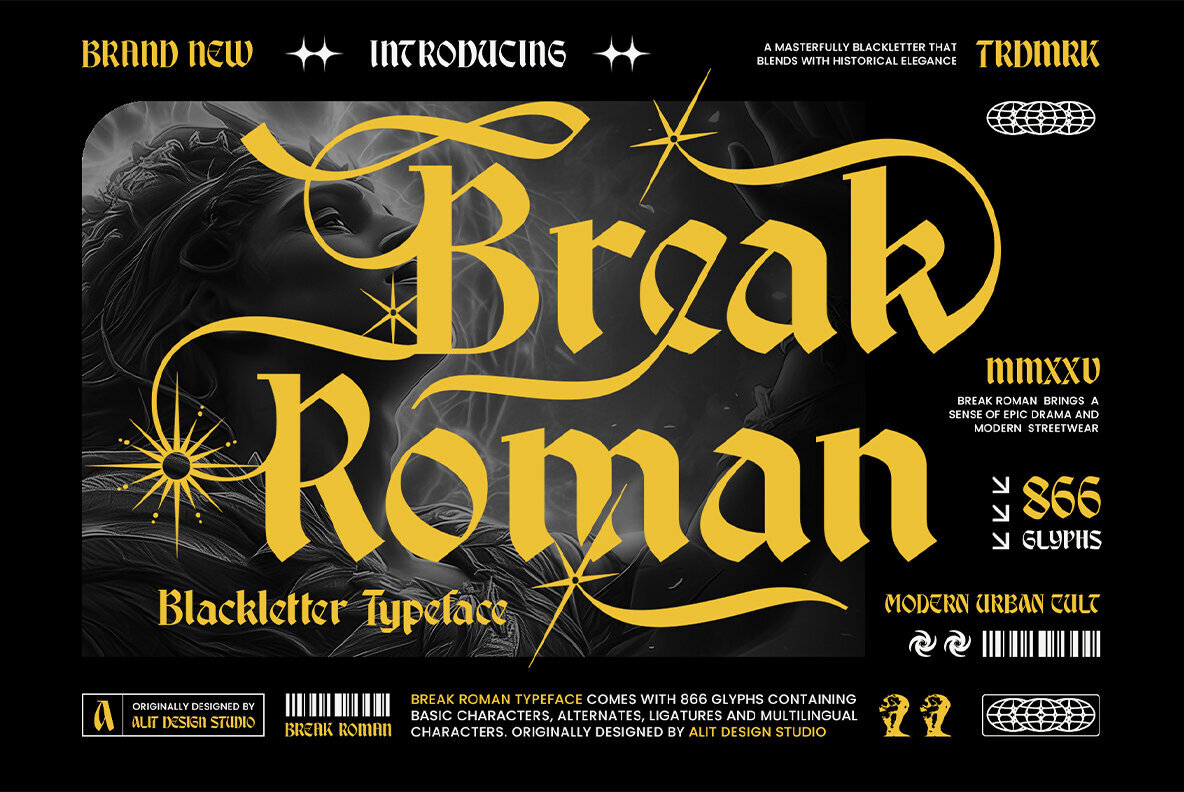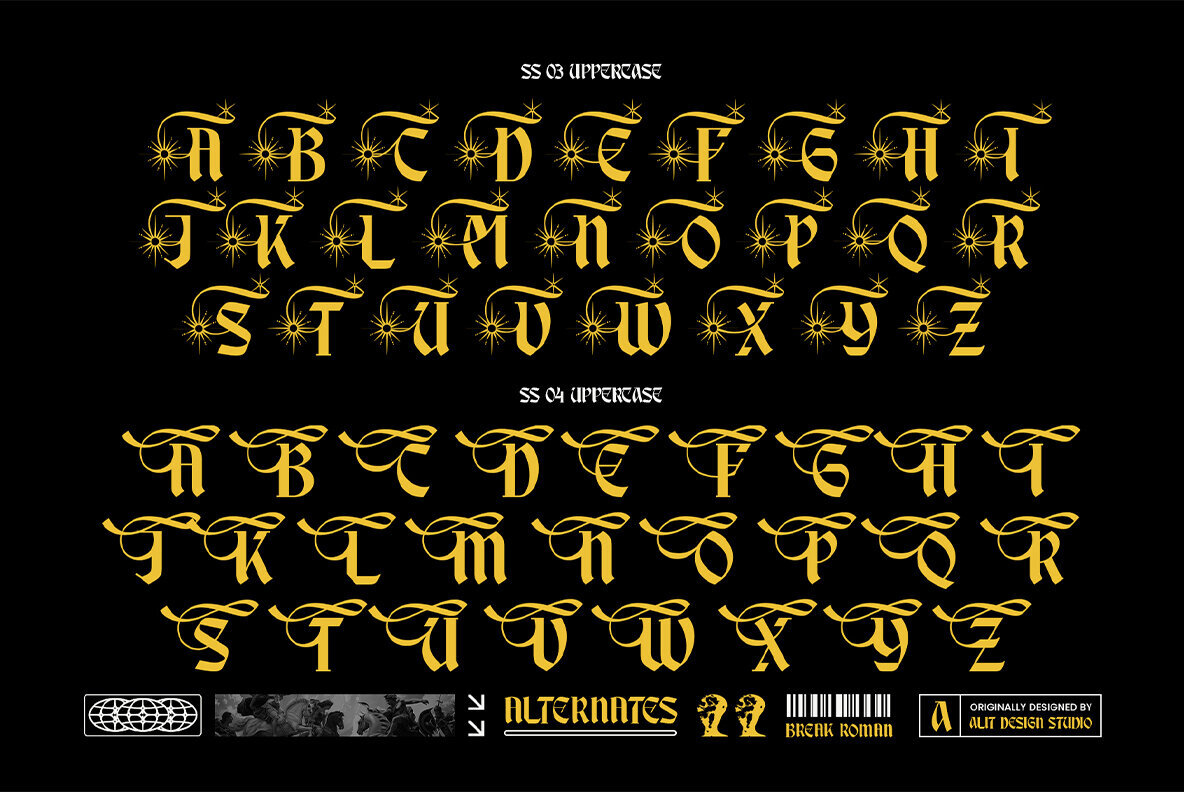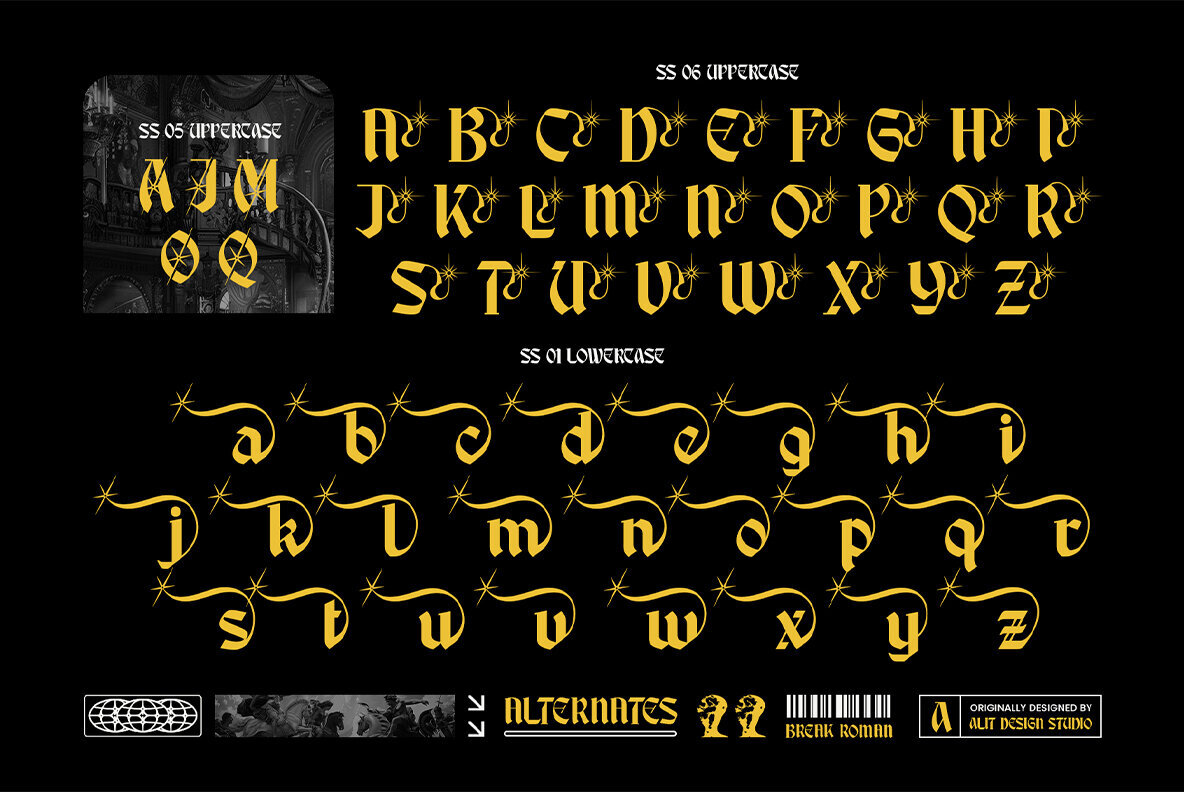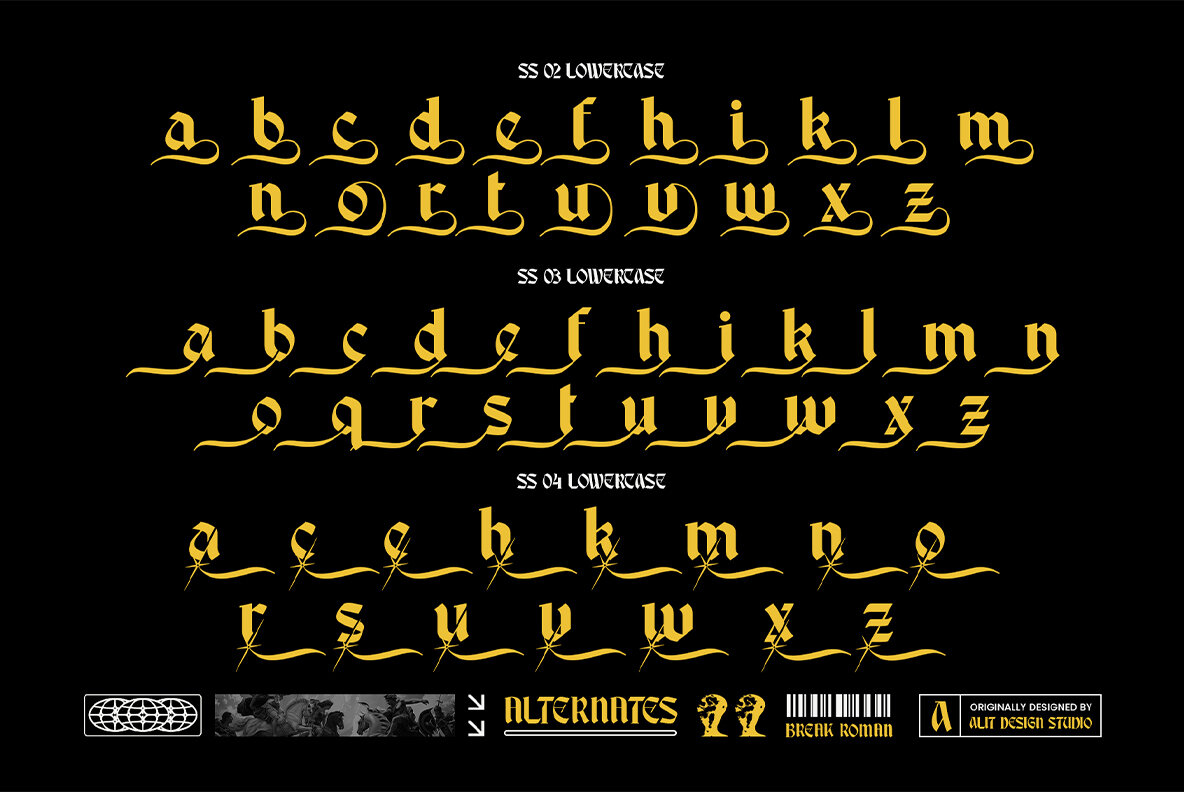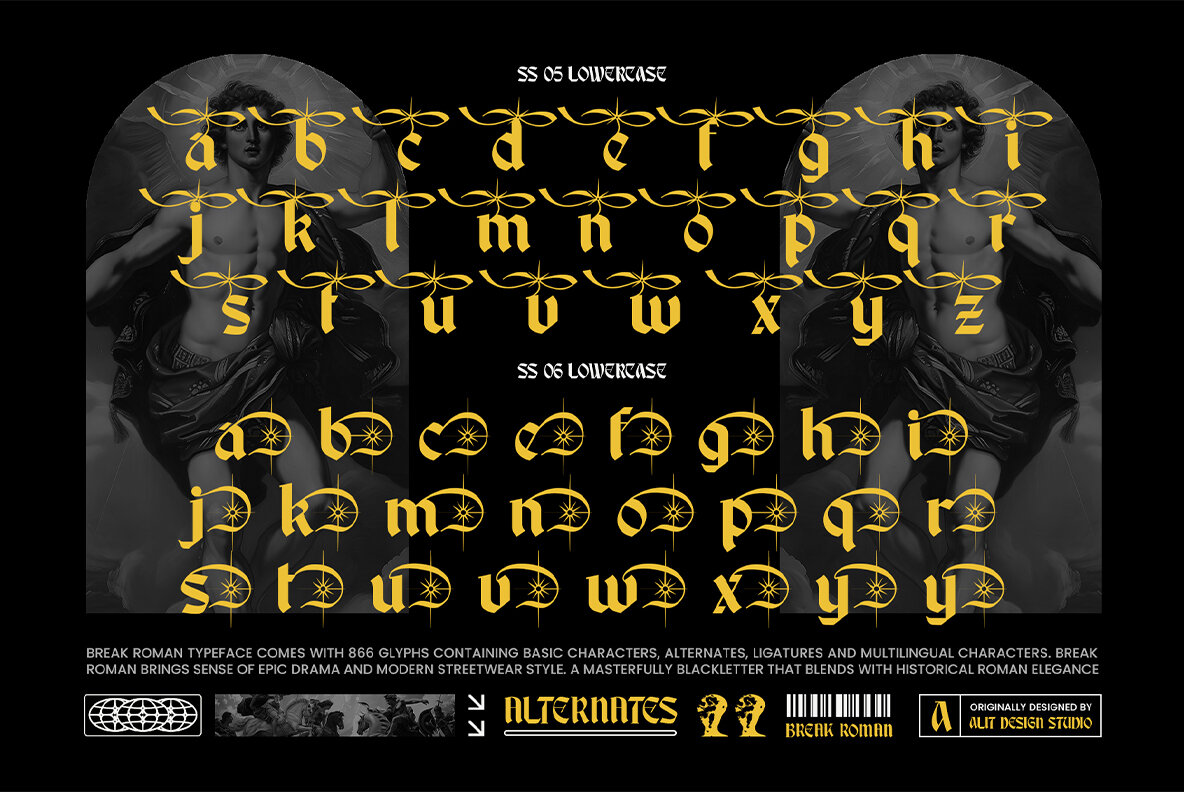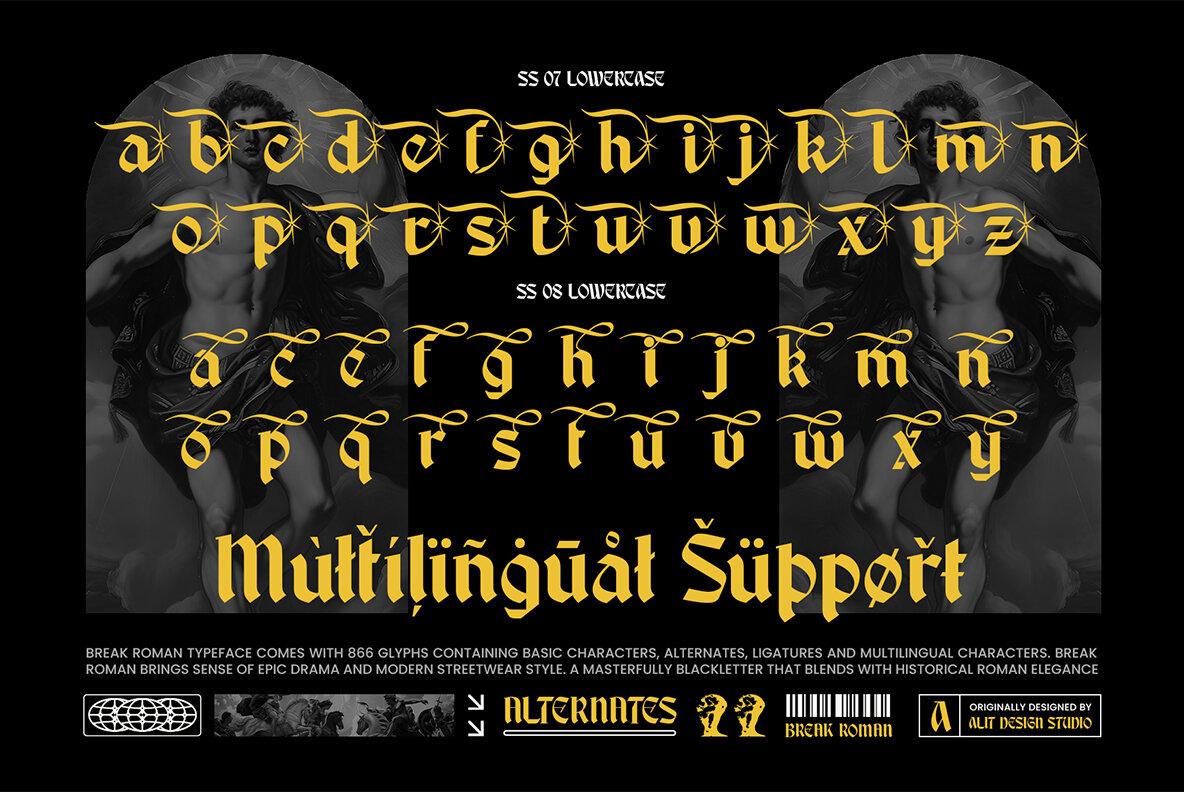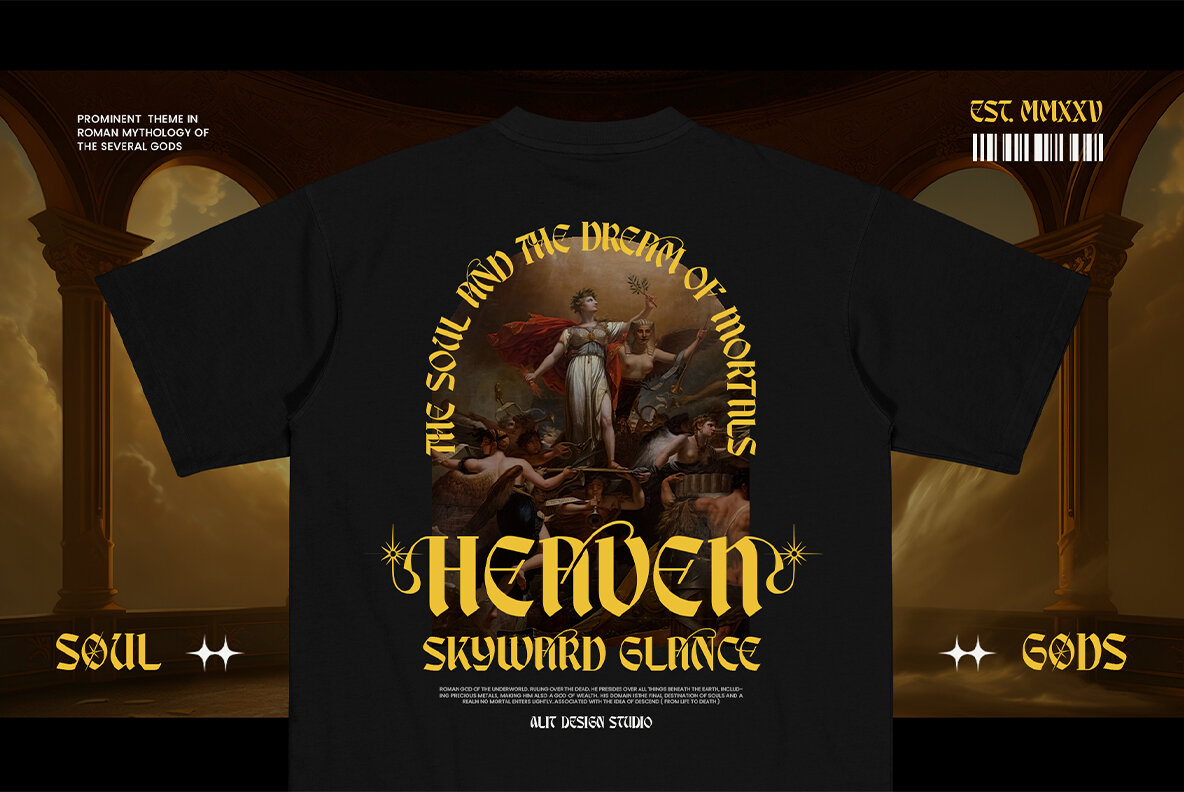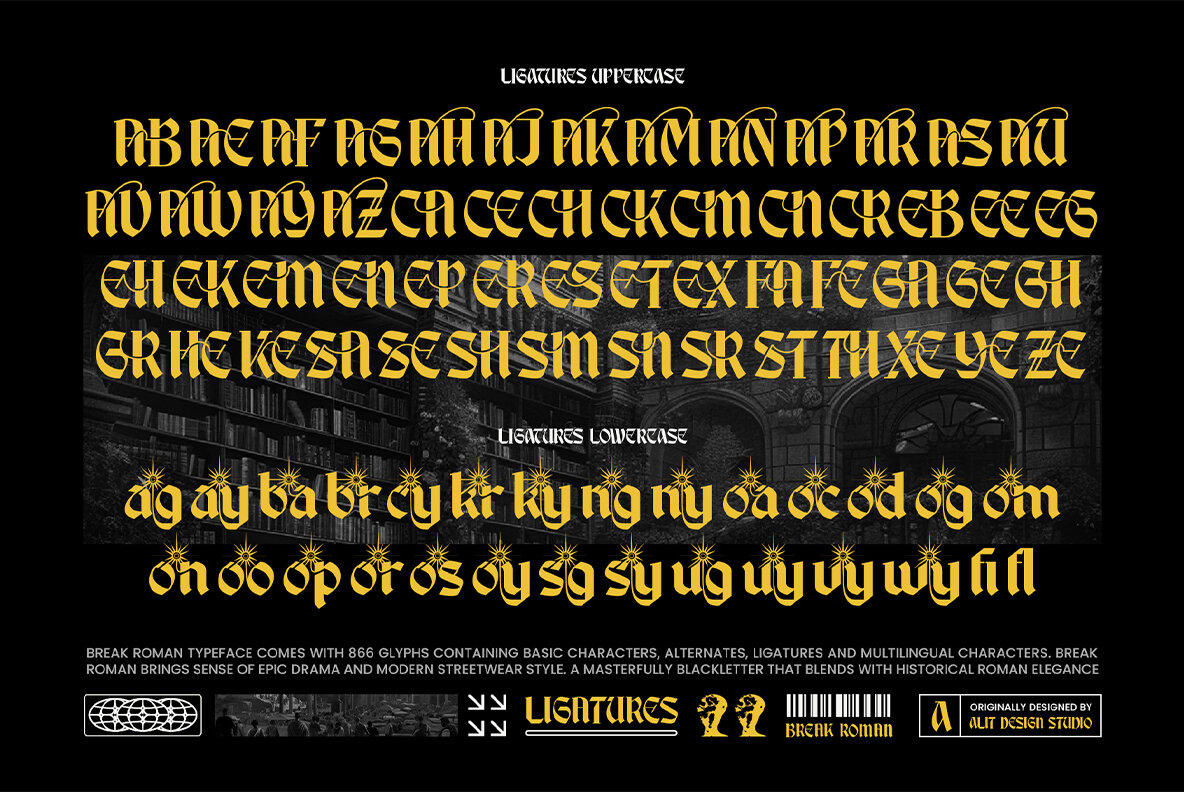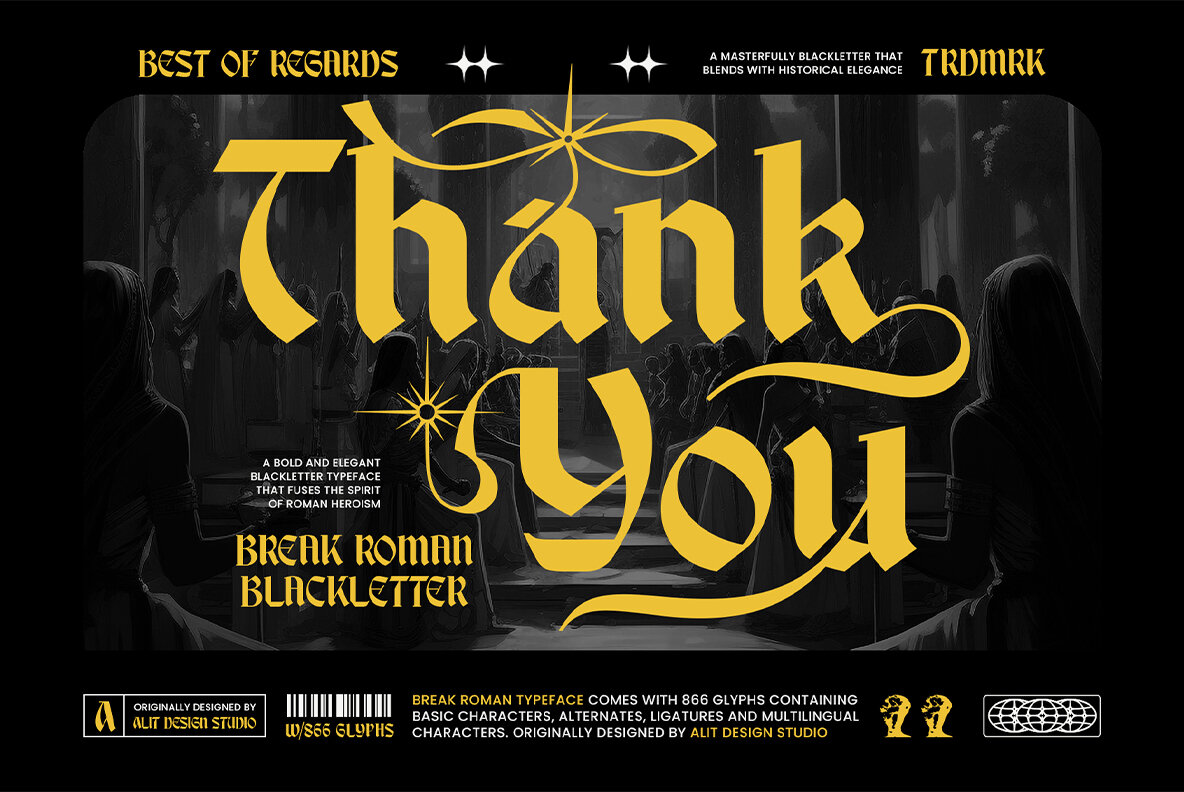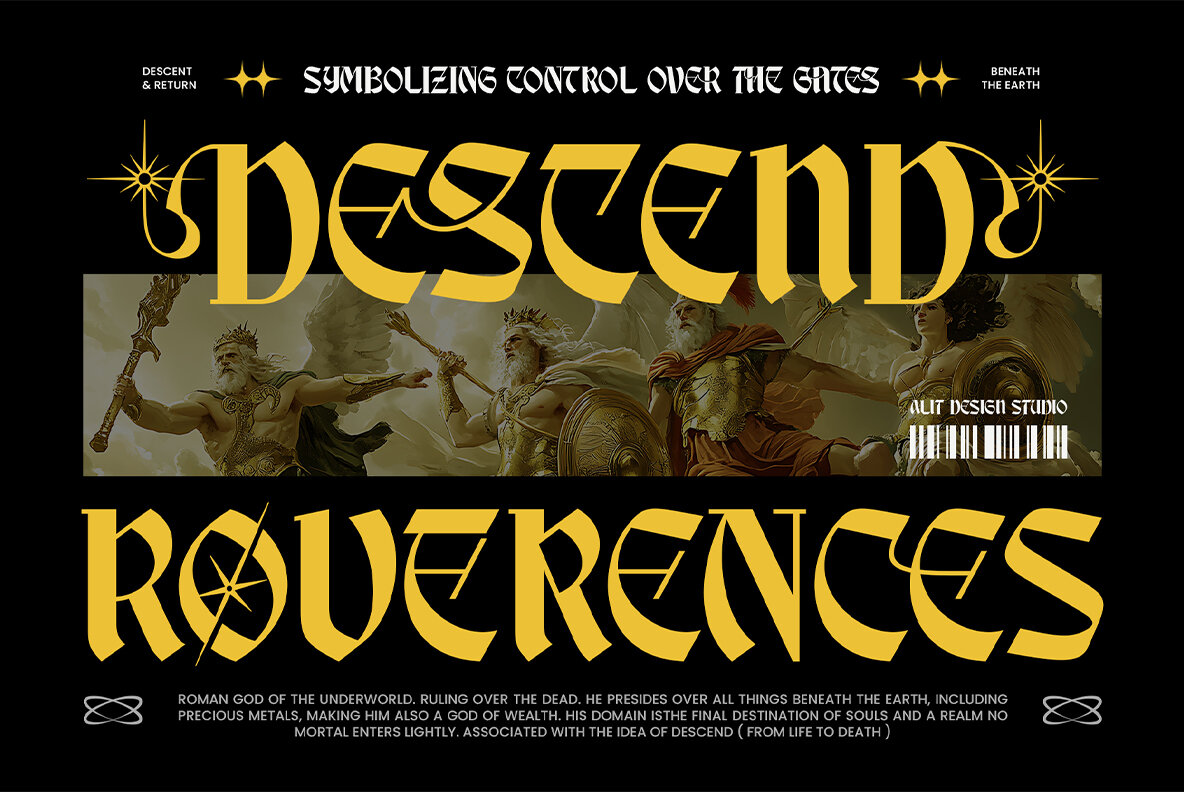
Step into the realm of Break Roman, a distinctly stylized display typeface that seamlessly marries the gothic essence of blackletter tradition with the concise precision of modern serif design. Crafted by Alit Design Studio, this typeface is not merely a font but an artistic experience, embodying drama, flair, and precision craftsmanship. With Break Roman, medieval gravitas converges with contemporary visual culture, making its intricate letterforms ideal for both luxury editorials and urban streetwear branding. Whether for metal album covers, tattoo parlor signage, or luxury fashion branding, Break Roman exudes a gothic yet fresh appeal, marrying aggression with refinement. Perfect for music branding, gothic-themed projects, high-fashion editorial layouts, and more, it enables brands to express distinct identity and artistry. Incorporate Break Roman Typeface for an unmistakable character and style. It’s a typographic experience where gothic elegance meets bold modernity, ideal for designs ranging from the underground to the high-fashion runway. Break tradition and embrace the future with Break Roman.Break Roman Typeface: A Historical and Contemporary Fusion
What Sets Break Roman Apart?